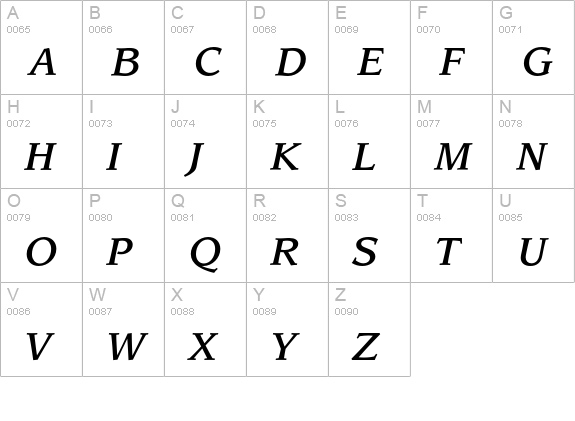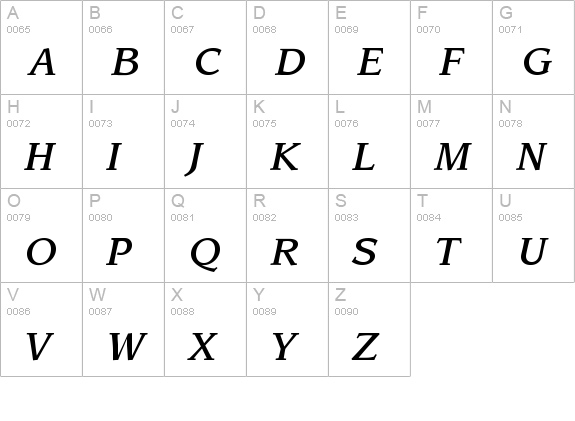
LeawoodEF-MediumItalic Font Details
LeawoodEF-MediumItalic font is an elegant and sophisticated typeface that brings a touch of class to any design project. With its slanted and slightly italicized letterforms, this font exudes a sense of style and refinement. This font is not only visually appealing but also highly versatile, making it suitable for a wide range of applications. Whether it's used in print or digital media, LeawoodEF-MediumItalic adds a touch of elegance to headlines, logos, body text, and more. One of the best things about LeawoodEF-MediumItalic font is that it is freely available to download at FontsMarket.com. This means that designers and creatives can easily access and utilize this beautiful font without any cost. It's a great option for those who are looking for a high-quality typeface that doesn't break the bank. The clean and legible design of LeawoodEF-MediumItalic ensures that it remains readable even at smaller sizes, making it perfect for both print and digital applications. Its balanced letterforms and subtle slant create a harmonious and pleasing visual experience for readers. Whether you're working on a branding project, a magazine layout, a website design, or any other creative endeavor, LeawoodEF-MediumItalic font is sure to elevate your work to the next level. It's a versatile and elegant typeface that adds a touch of sophistication to any design. With its freely available download at FontsMarket.com, LeawoodEF-MediumItalic font is accessible to designers and creatives worldwide. Don't miss out on the opportunity to enhance your projects with this beautiful and stylish typeface. Download LeawoodEF-MediumItalic today and experience the timeless elegance it brings to your designs.